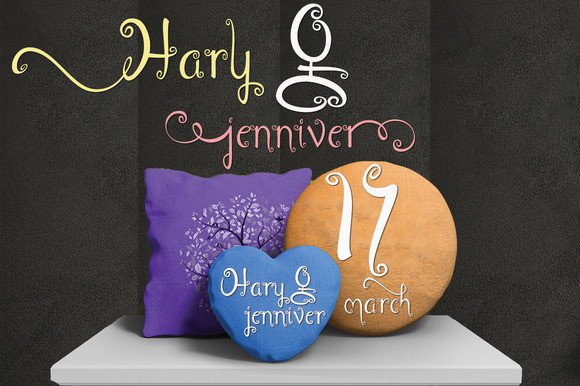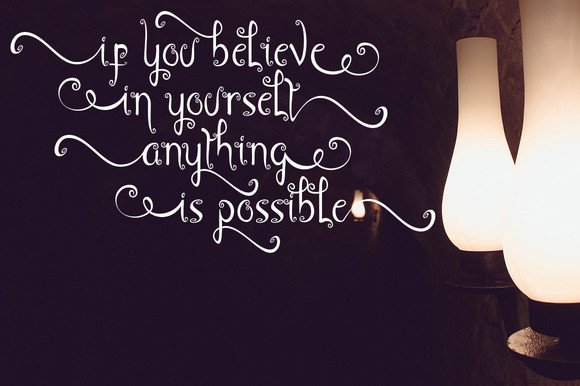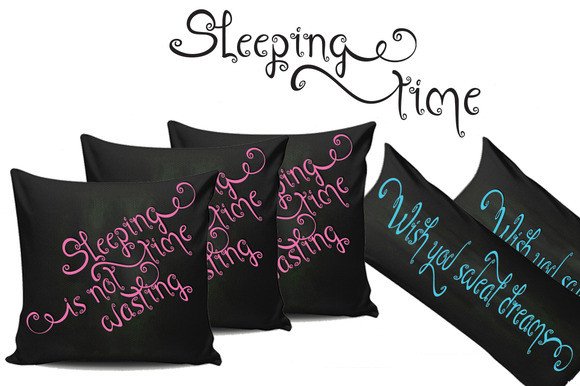
About Amsterday Font
Amsterday typography has a different character, specially designed separately with the top line.
Matches to meet the needs of design projects. Can be used for various purposes such as titles, signatures, logo’s, correspondences, wedding invitations, letterheads, signage’s, labels, newsletters, posters, badges, etc.
Amsterday features 481 glyphs.